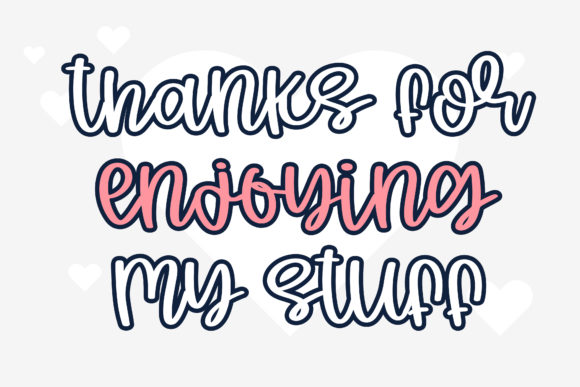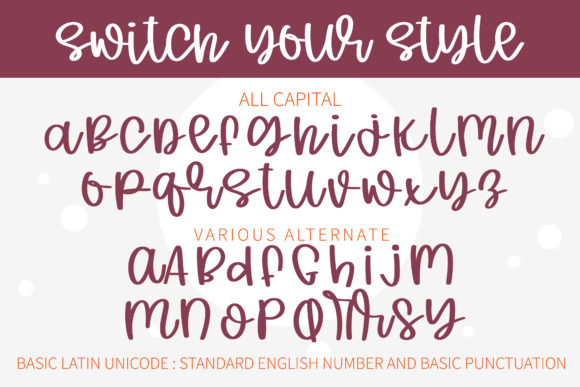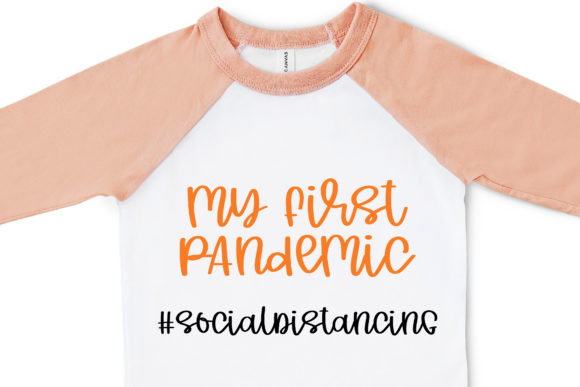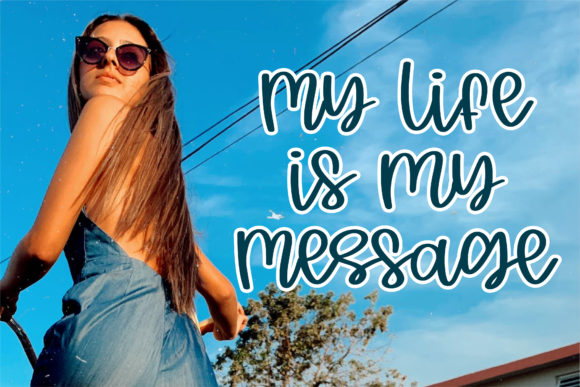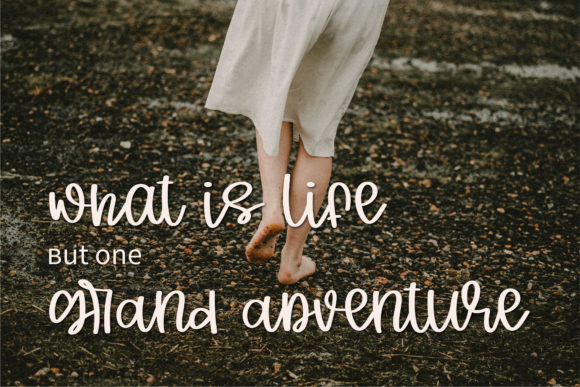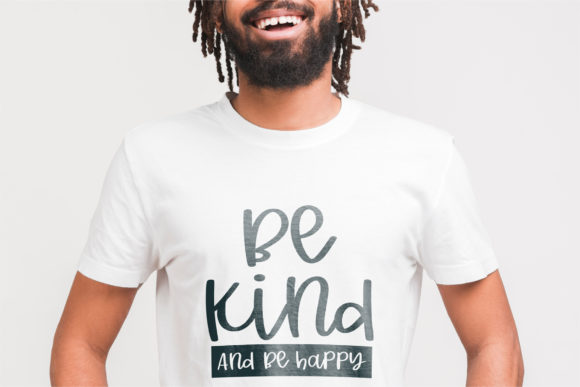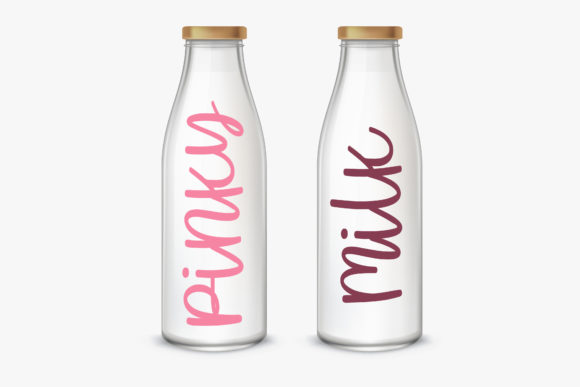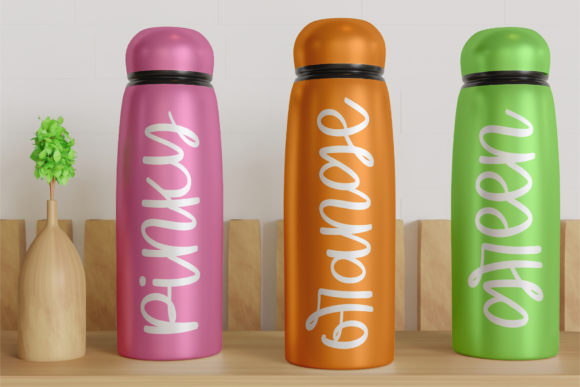
Switch Your Style Font
Switch your style is a fun and ravishing script font. Its natural and friendly style makes it fitting to a large pool of designs. The only limit is your imagination!